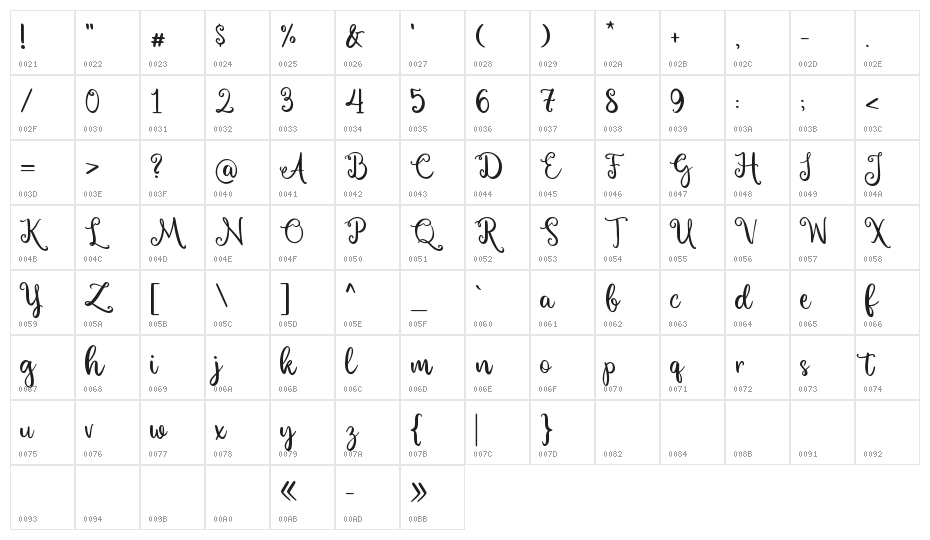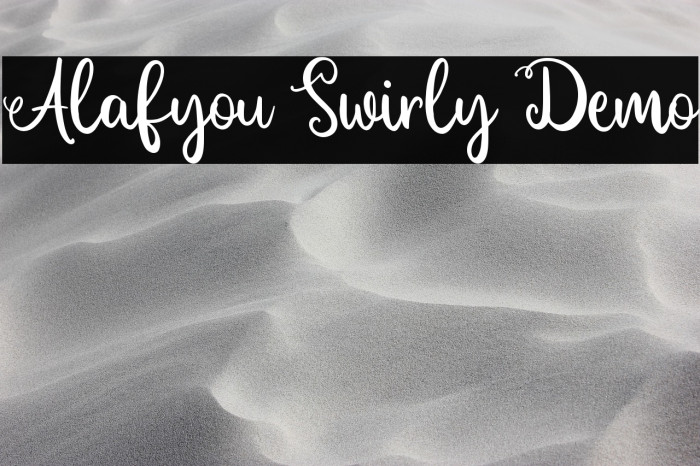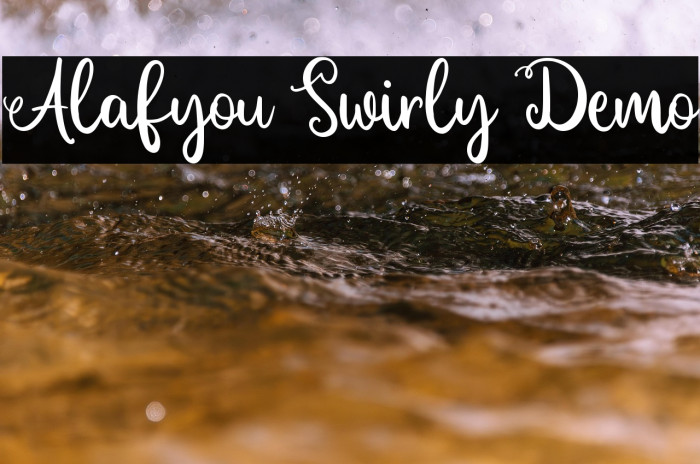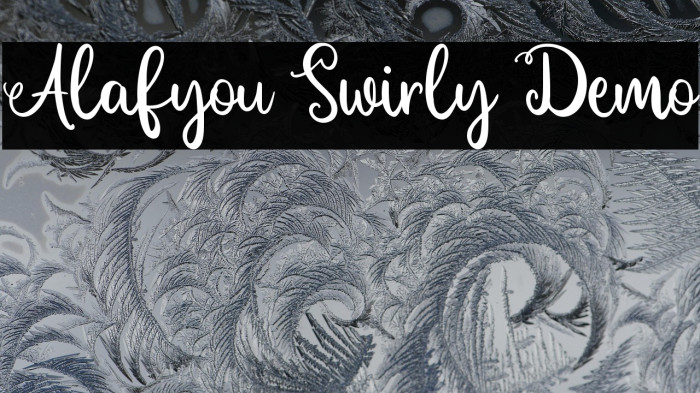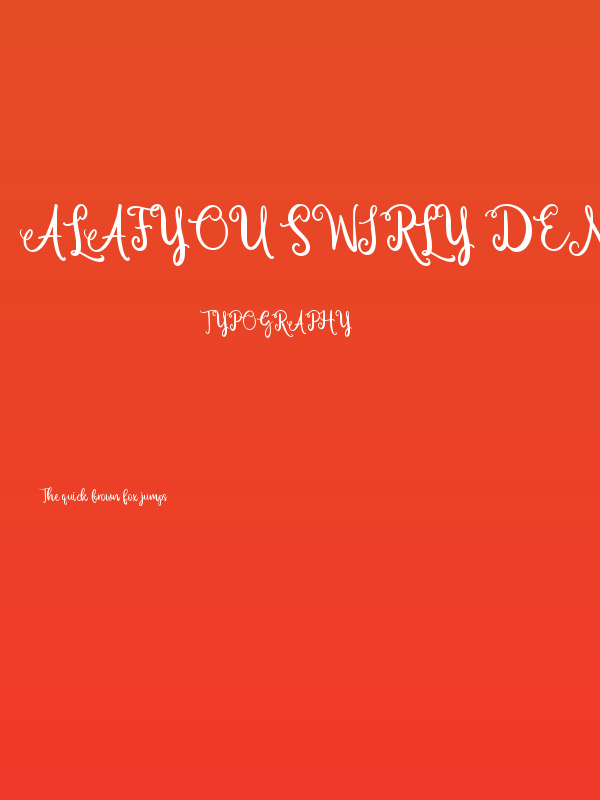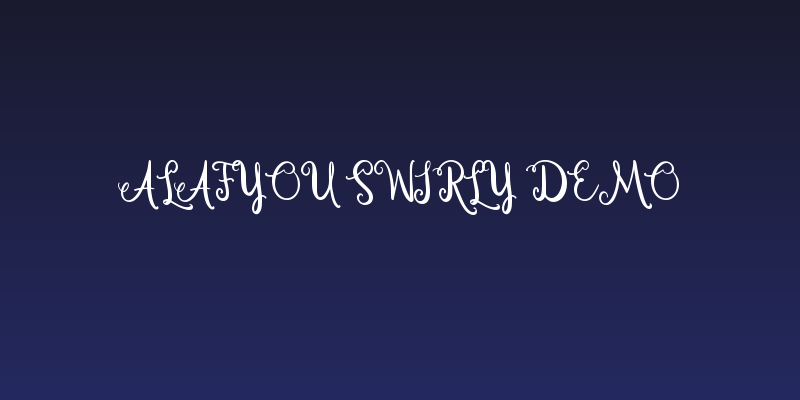
Alafyou Swirly Demo Font
Alafyou Swirly Demo Description
This font features a whimsical and playful design with elegant swirls and curls that add a touch of sophistication. The uppercase letters are adorned with decorative loops, giving them a unique and artistic flair. The lowercase letters maintain a smooth and flowing style, enhancing readability while retaining a sense of charm. The numerals are consistent with the overall aesthetic, featuring subtle curves that complement the letters. Special characters are creatively designed, maintaining the font's cohesive look. This font is perfect for projects that require a touch of elegance and creativity, such as invitations, greeting cards, and branding materials.
Use CaseHeadlines, Logos, Invitations
Proposed ProjectsIdeal for invitations, greeting cards, branding, and creative projects.